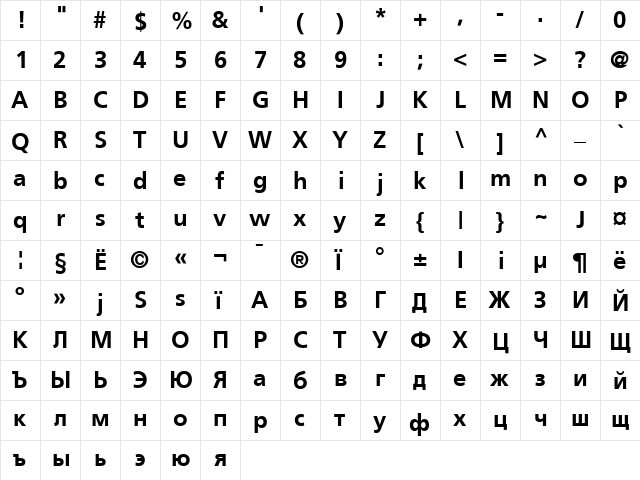
AG Foreigner Light-Bold Bold
Design Context for AG Foreigner Light-Bold Typeface
AG Foreigner Light-Bold takes a measured approach to typography — its balanced proportions and neutral character make it a reliable workhorse for both digital and print work. Its bold stroke weight gives it real presence on the page.